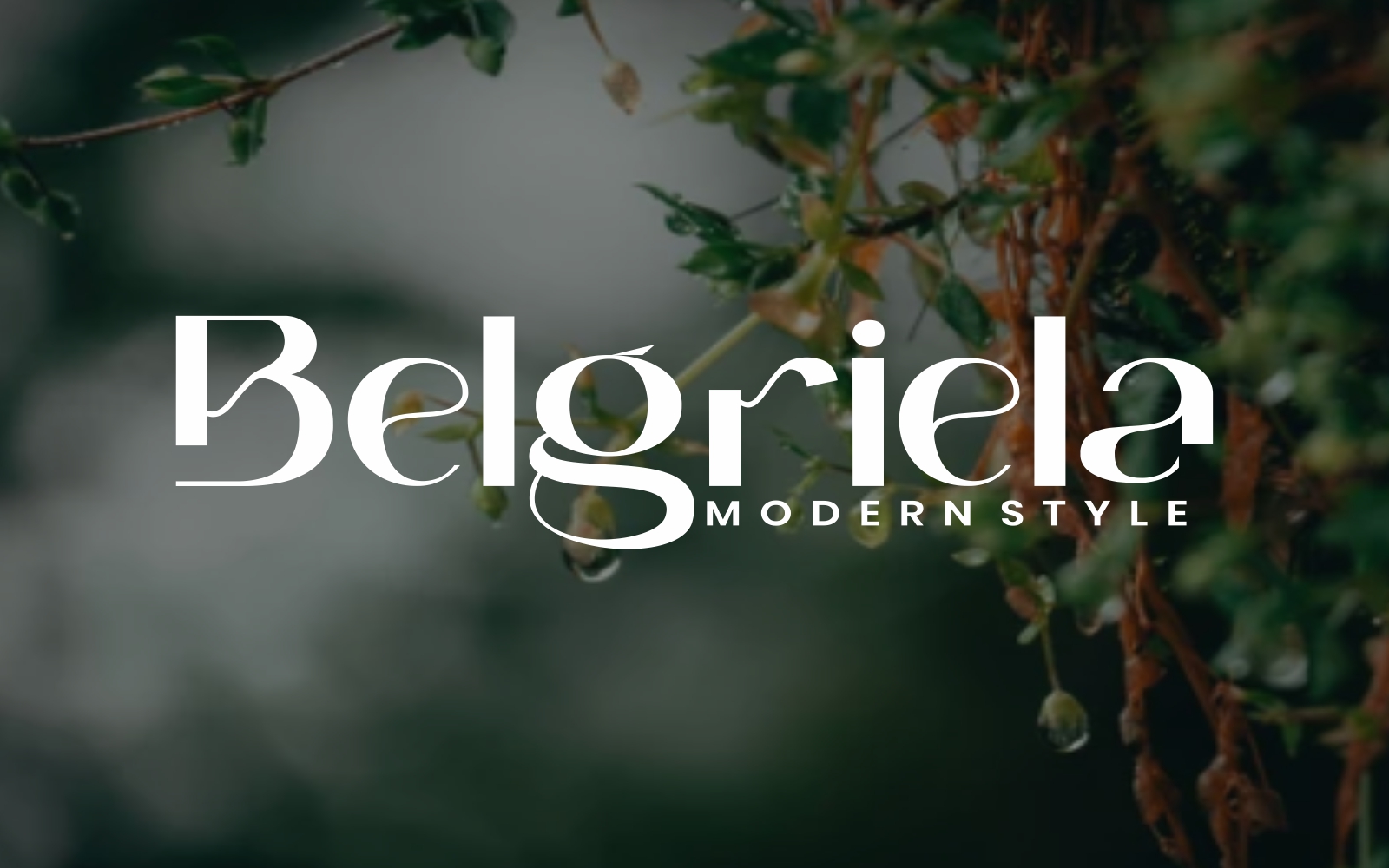
Belgriela - Sans Serif Modern Fonts
Introducing **Belgrida **, an elegant, simple, and beauty sans serif font. Its unique and lovely feel.
So perfect for you who needs a typeface for logo designs, magazine, social media, brochure, and many more.
**Features**
+ Uppercase
+ Lowercase
+ Numerals